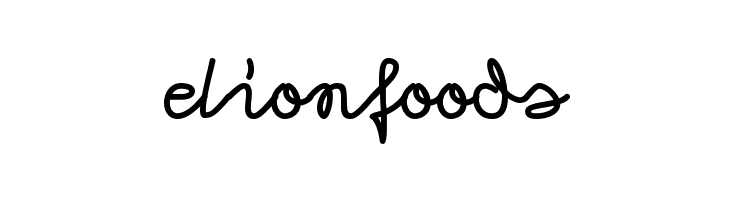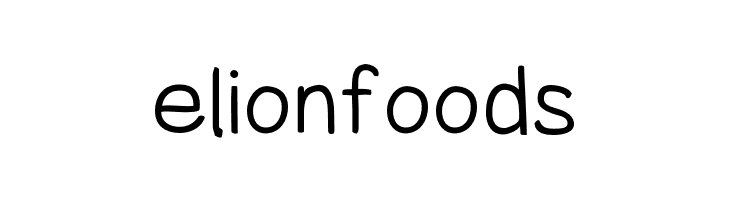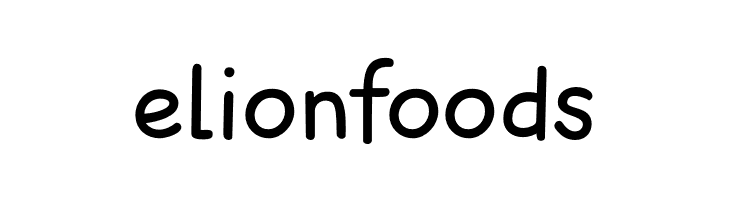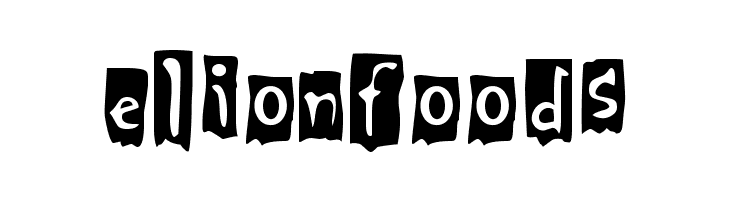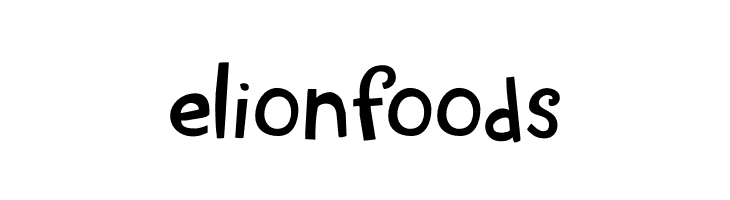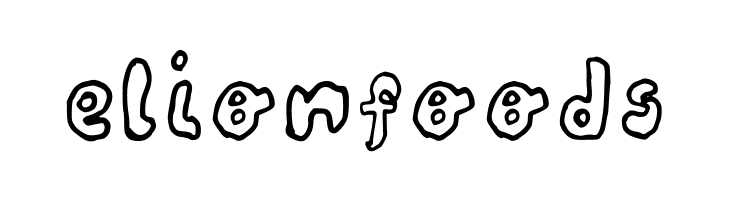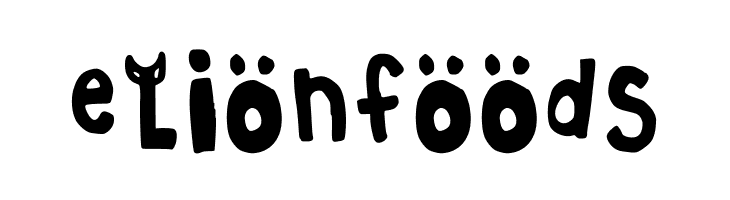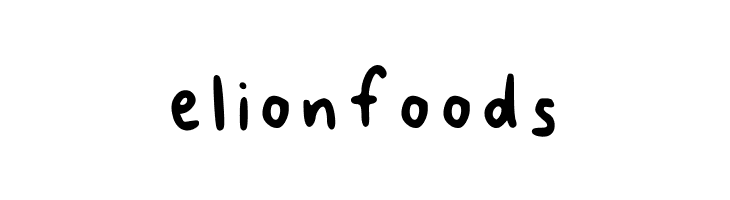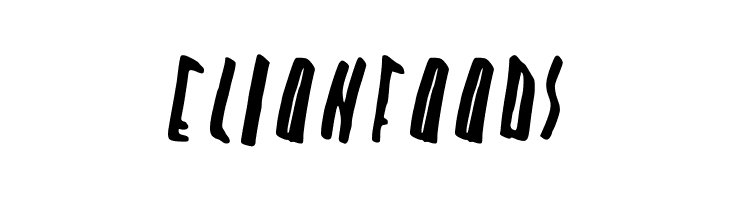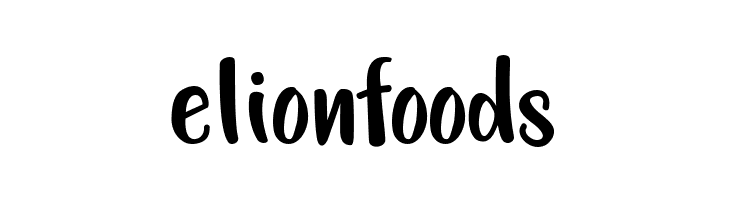
A playful, handwritten font with smooth, flowing curves and a casual style.
( Fonts by Titan Firman )
A playful, handwritten font with rounded edges and a casual style.
( Fonts by Hanoded )
A playful, hand-drawn font with rounded edges and bird illustrations.
( Fonts by Hanoded )
A playful and whimsical font with quirky, irregular letterforms.
( Fonts by Thiago Mariano )
A playful, hand-drawn font with wavy, irregular outlines.
( Fonts by Lois )
A playful, hand-drawn font with bold, irregular characters and unique embellishments.
A playful, hand-drawn font with rounded, informal characters.
A bold, hand-drawn font with dynamic and irregular shapes.
A playful, handwritten font with smooth curves and a casual style.